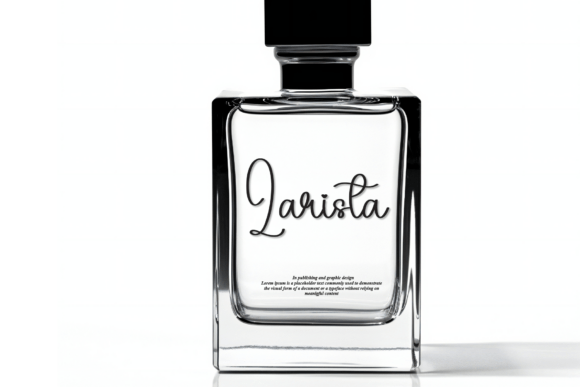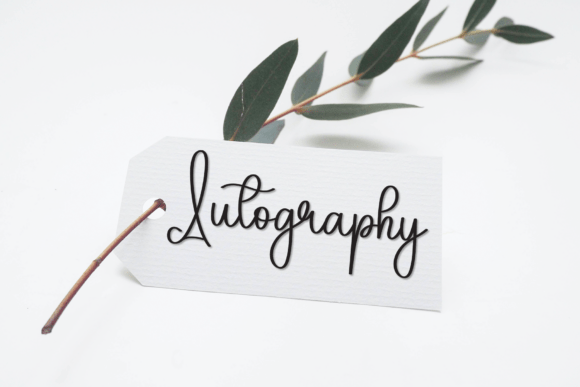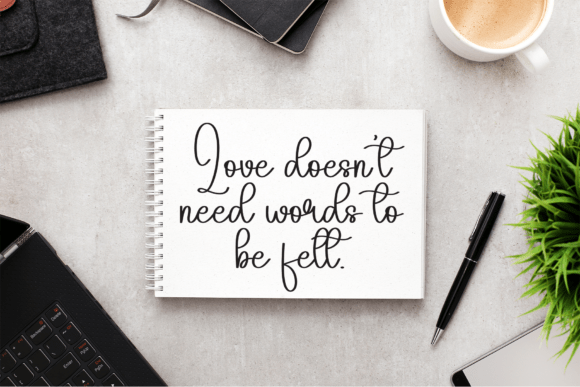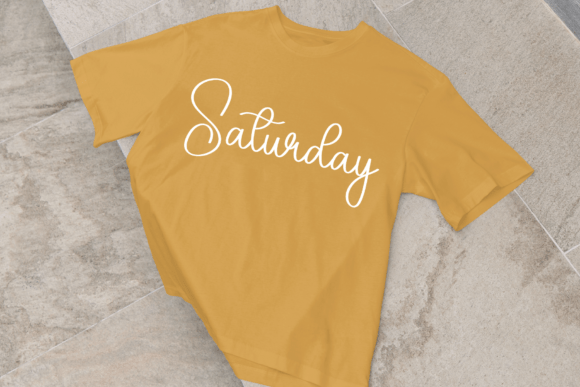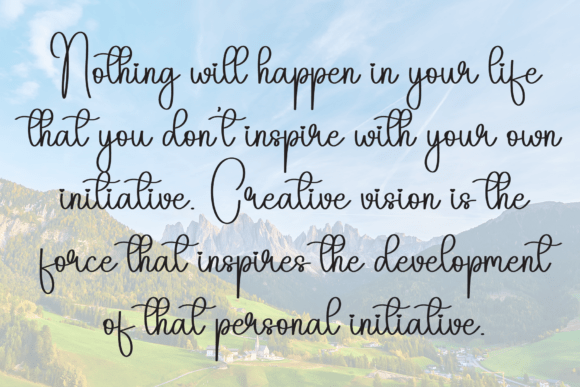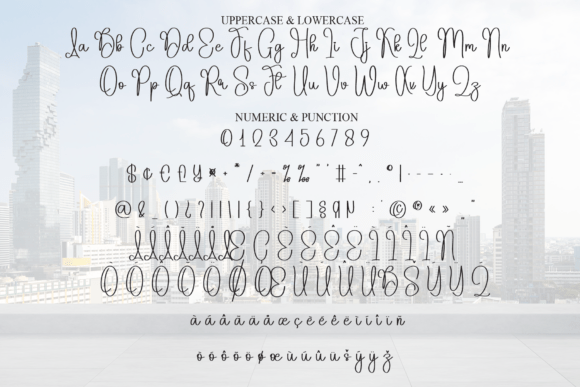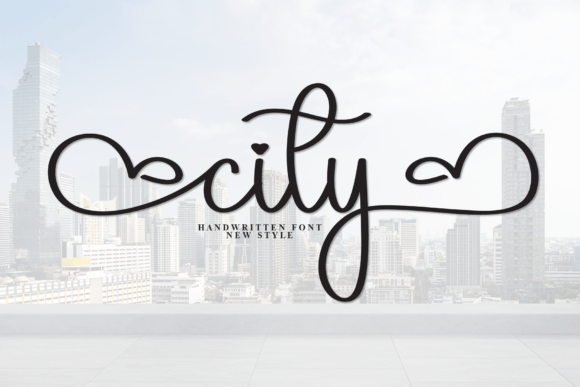
Introducing City Font: The Playful Handwritten Display Font
Are you looking for a font that can add a touch of charm and friendliness to your designs? Look no further than City Font, a delightful handwritten display font that is sure to bring a smile to your face. With its cute and lively nuances, this adorable font is perfect for crafting wedding invitations, greeting cards, and any design that calls for a sprinkle of joy and fun.
The Characteristics of City Font
City Font is a handwritten display font that exudes a playful and carefree vibe. Its unique characteristics make it stand out from other fonts, and its friendly tone is sure to make your designs more approachable and engaging. The font features:
• Cute and lively nuances: City Font has a whimsical feel that is perfect for designs that require a touch of personality.
• Handwritten style: The font has a handwritten look that gives it a personal and human touch.
• Playful allure: City Font is designed to be playful and fun, making it perfect for designs that require a lighthearted tone.
Uses for City Font
City Font is a versatile font that can be used for a variety of design projects. Some of the most popular uses for this font include:
• Wedding invitations: City Font is perfect for crafting beautiful and unique wedding invitations that set the tone for a joyful and celebratory occasion.
• Greeting cards: The font’s friendly and approachable tone makes it ideal for creating greeting cards for birthdays, holidays, and other special occasions.
• Social media graphics: City Font can add a touch of personality to your social media graphics, making them more engaging and shareable.
• Branding and packaging: The font’s playful and whimsical feel makes it perfect for brands that want to convey a sense of fun and friendliness.
Benefits of Using City Font
Using City Font in your designs can have a number of benefits, including:
• Adding a touch of personality: City Font’s unique characteristics can help your designs stand out and convey a sense of personality.
• Creating a friendly tone: The font’s friendly and approachable tone can help create a sense of warmth and approachability in your designs.
• Making designs more engaging: City Font’s playful and whimsical feel can help make your designs more engaging and shareable.
Tips for Using City Font
Here are a few tips for using City Font in your designs:
• Use it sparingly: City Font is a display font, so it’s best to use it sparingly to add emphasis and personality to your designs.
• Pair it with other fonts: City Font can be paired with other fonts to create a unique and visually appealing combination.
• Experiment with colors and textures: City Font can be used with a variety of colors and textures to create a unique and eye-catching design.
Font Name City Font
City Font is a playful and charming handwritten display font that is perfect for designers and crafters who want to add a touch of personality to their designs. With its cute and lively nuances, friendly tone, and whimsical feel, this font is sure to bring a smile to your face and make your designs more engaging and shareable. So why not give City Font a try and see how it can help you unleash your creativity and make your designs heartwarmingly appealing?